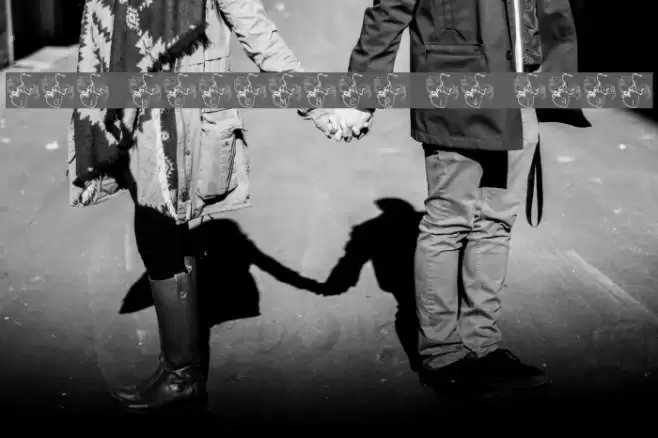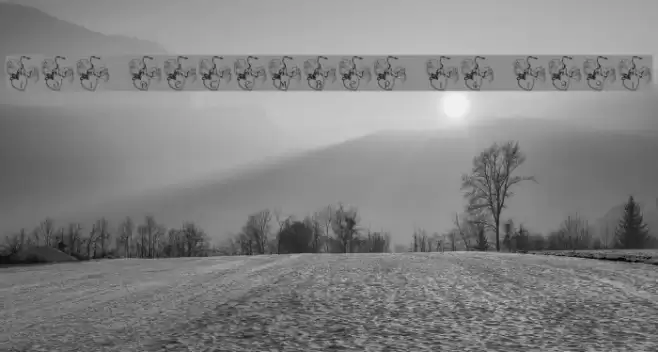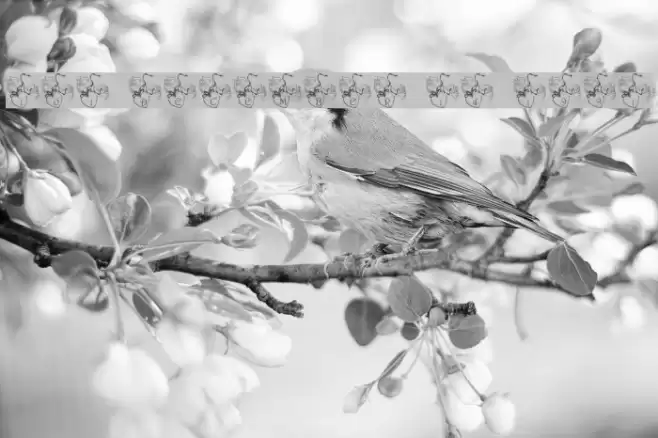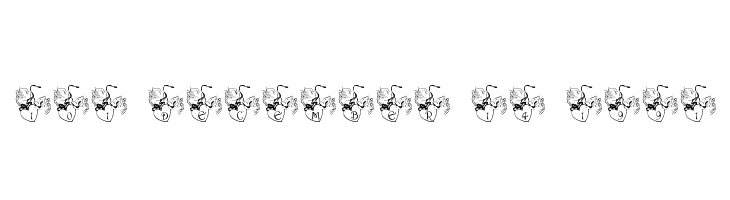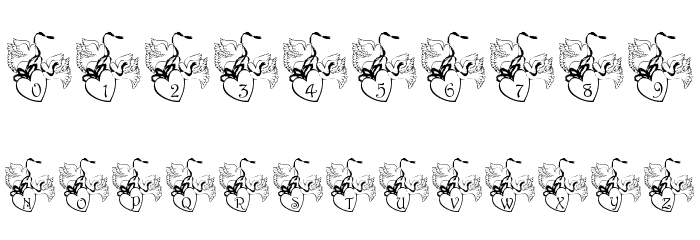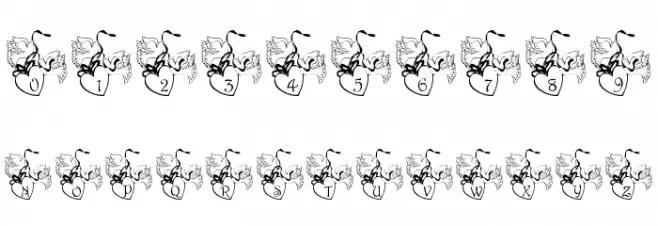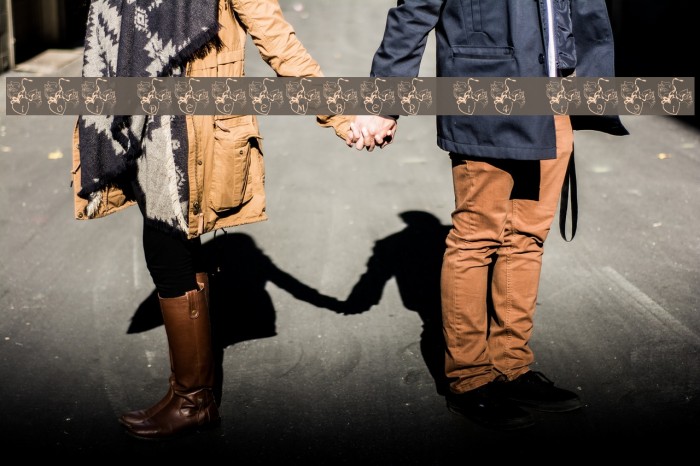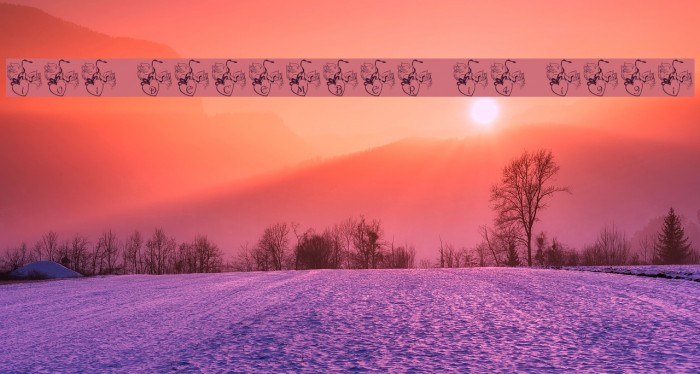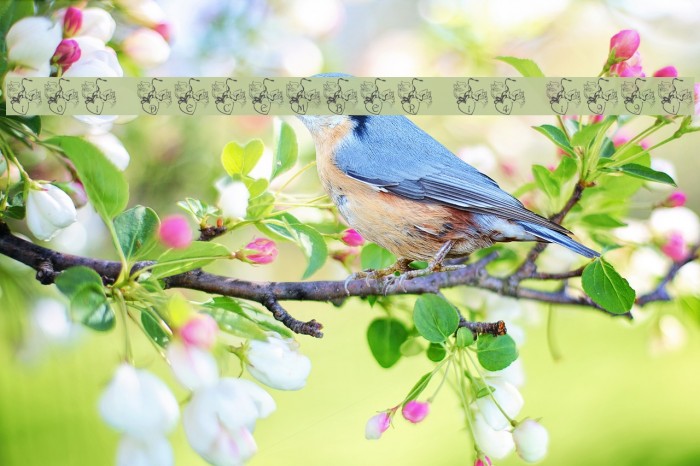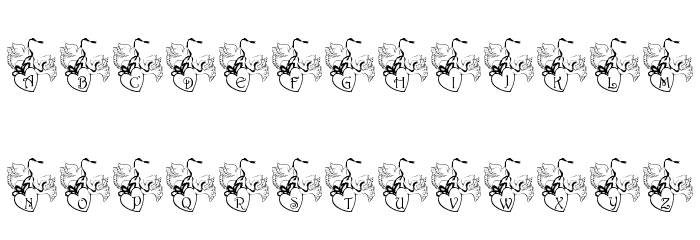
101! December 14 1991 Font
101! December 14 1991 Description
This decorative font features intricate floral and vine motifs that intertwine with each character, creating an ornate and whimsical appearance. Each letter and number is encased in a detailed, flowing design that evokes a sense of elegance and fantasy. The embellishments are consistent across all characters, providing a cohesive look while maintaining individuality in each letterform. The font is highly stylized, making it suitable for artistic and creative projects where a touch of sophistication and uniqueness is desired.
An ornate, decorative font with intricate floral and vine motifs from Uncategorized fonts.
- Proposed Projects: Ideal for wedding invitations, fantasy-themed book covers, artistic posters, and decorative branding.
- Use Case: Logos, Invitations, Artistic Projects